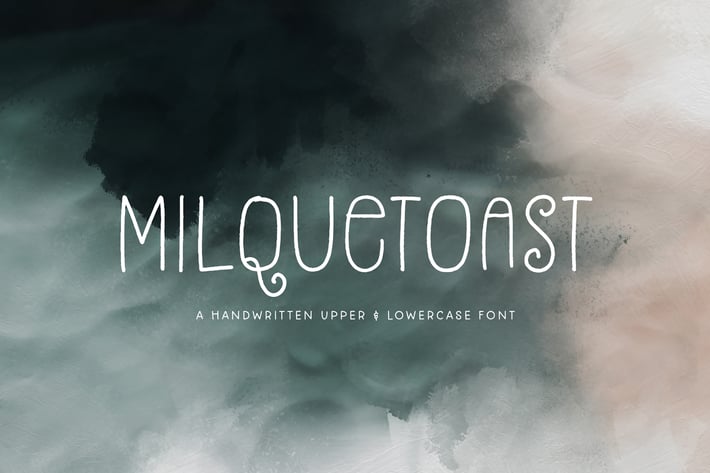
Milquetoast Typeface
I love the word Milquetoast. It actually means boring or bland, but this sweet little font is anything but! Use the Uppercase Gyphs for headlines, branding, stickers or packaging, while the lowercase characters are so great for labels & quotes! Plus get select alternates, 5 ampersands & two thicknesses (regular & bold).
• Milquetoast Regular
• Milquetoast Bold
• English Glyphs with Western European accents (to add manually).